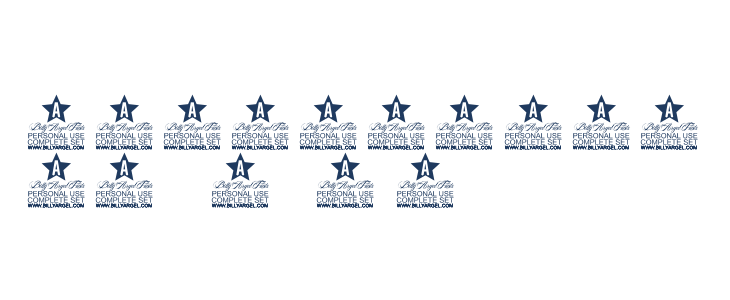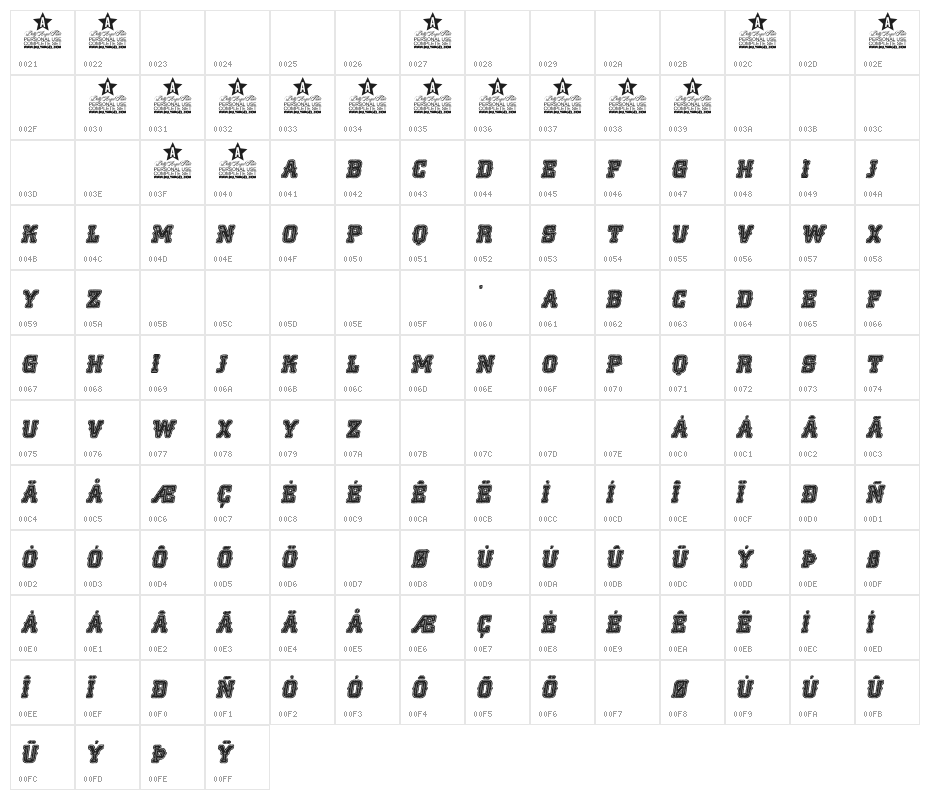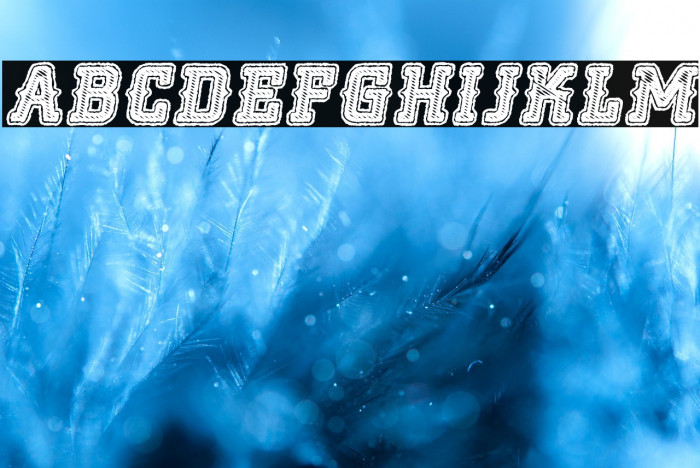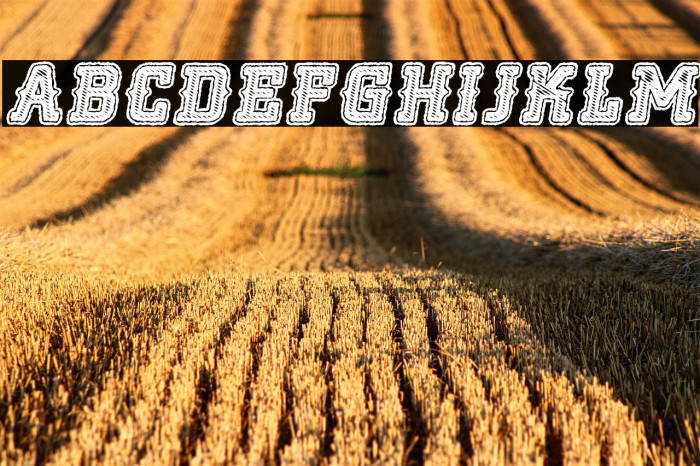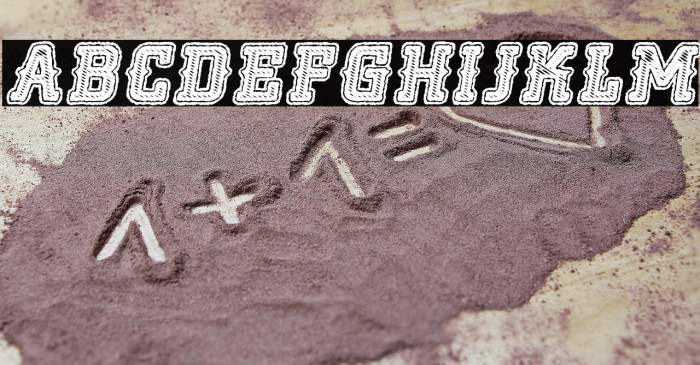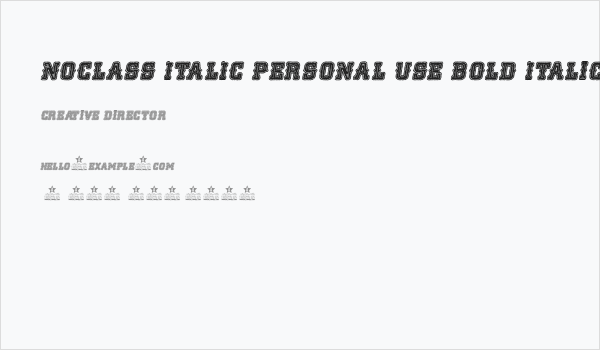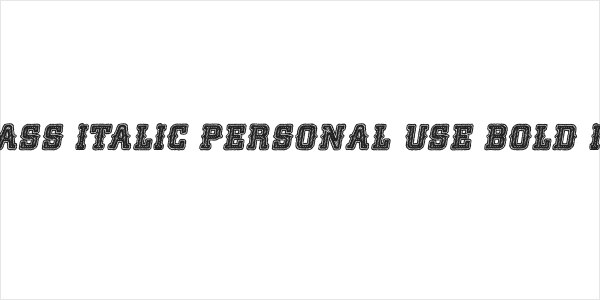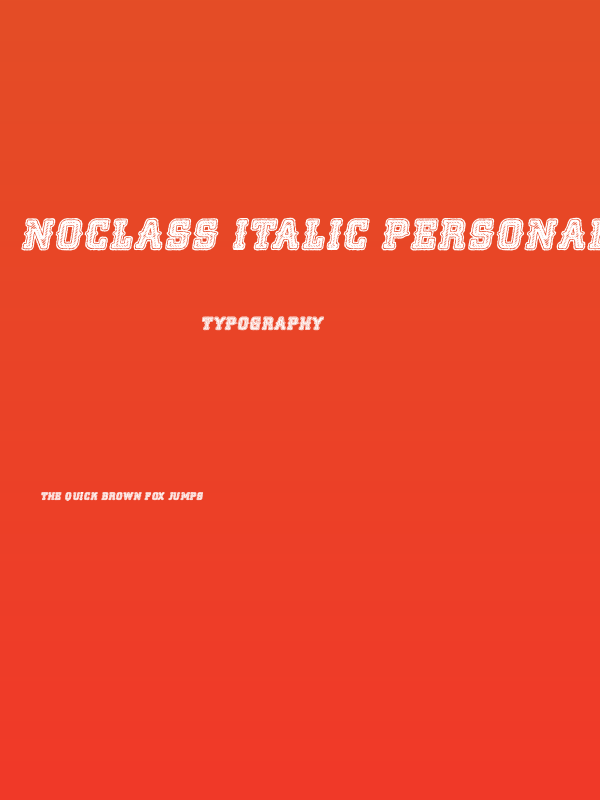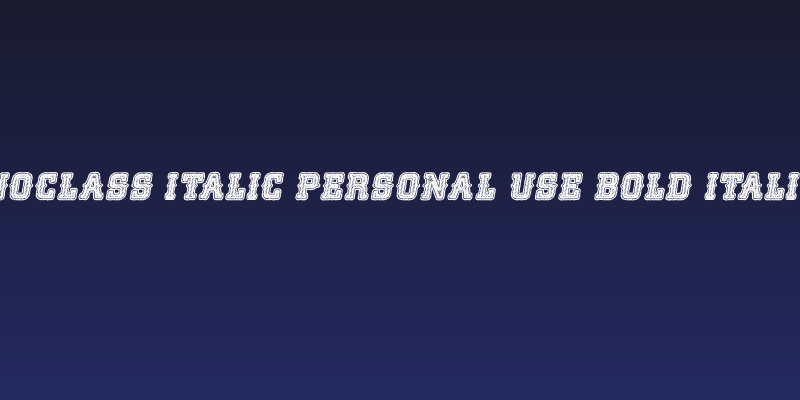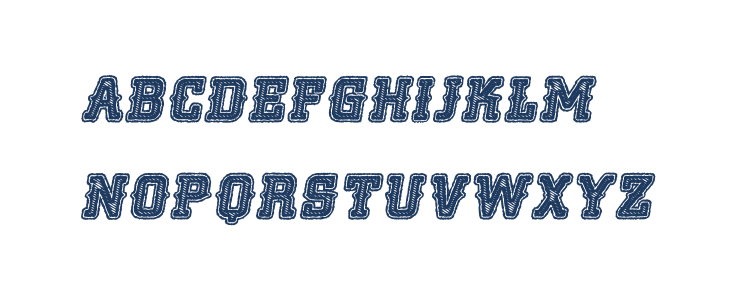
NOCLASS ITALIC PERSONAL USE Bold Italic Font
NOCLASS ITALIC PERSONAL USE Bold Italic Description
This font features a bold, italicized style with a decorative, textured appearance. Each letter is outlined with a thick, rugged border, giving it a three-dimensional effect. The interior of the letters is filled with a pattern that resembles hand-drawn lines, adding a unique, artistic flair. The overall look is reminiscent of vintage or retro designs, making it stand out in any application. The uppercase letters are consistent in height and width, providing a uniform appearance across the alphabet. This font is ideal for creating eye-catching headlines or logos that require a touch of nostalgia and creativity.
Overall StyleVintage
Proposed ProjectsIdeal for vintage-themed posters, retro branding, creative logos, and eye-catching headlines.